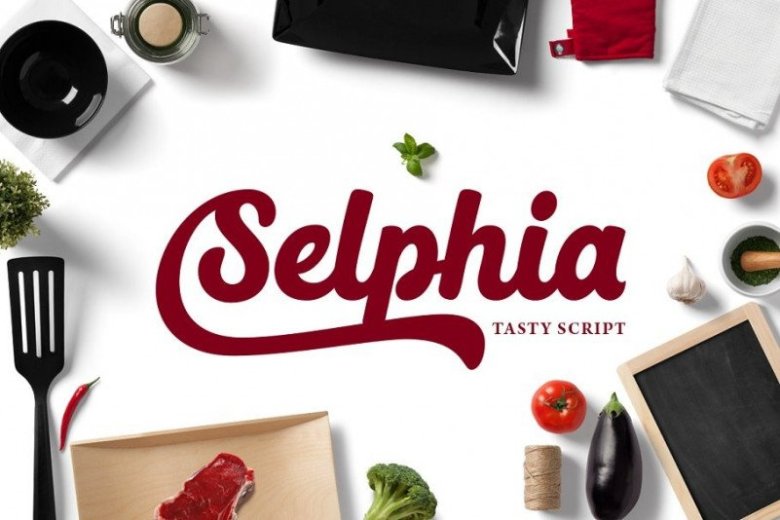
Selphia Font
Selphia Script Font is a minimalist and beautiful script font. Its casual charm makes it appear wonderfully down-to-earth, readable and, ultimately, incredibly versatile. It’s a new script typeface designed with deliciously taste, so fruity, and milky.
But you can be used for various purposes like tagline, t-shirt design, logos, quotes design etc. Best used in an Opentype-aware application such as Adobe Illustrator, Adobe InDesign, CorelDraw X6, etc. You can mix and match the alternates with opentype feature.